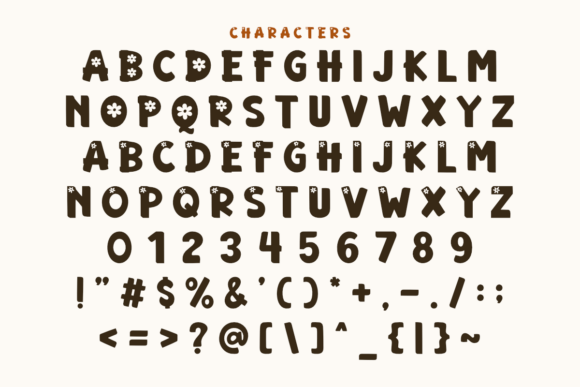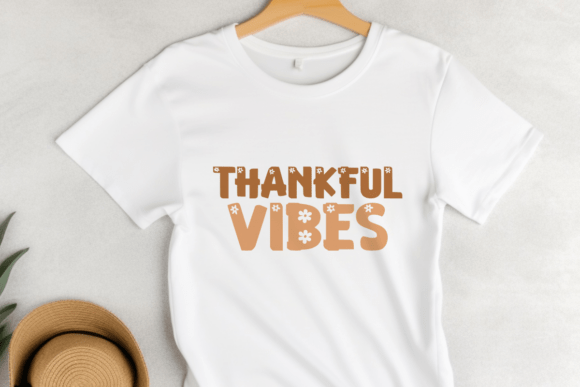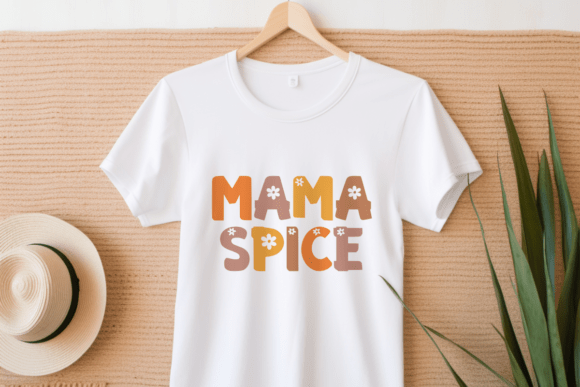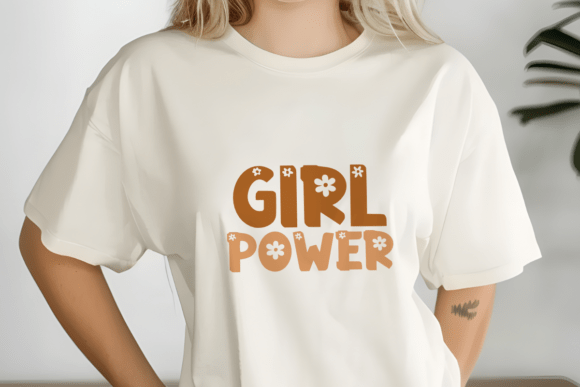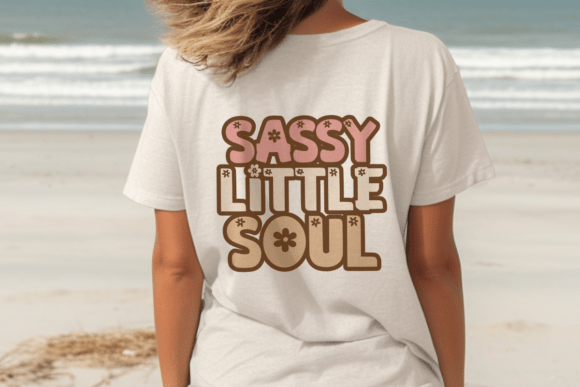
Fancy Flower Font: Add a Touch of Whimsy to Your Designs
Are you looking for a font that can add a dash of personality and charm to your design projects? Look no further than Fancy Flower, a playful and quirky retro font that’s bursting with creativity. With its bold and unique letterforms, delightful floral details, and cheerful vibe, Fancy Flower is the perfect choice for designers and crafters who want to make their designs stand out.
The Charm of Fancy Flower
Fancy Flower is a one-of-a-kind font that’s full of charm and character. Its bold and unique letterforms are designed to grab attention and make a statement, while its delightful floral details add a touch of whimsy and playfulness. Whether you’re designing a logo, creating a poster, or crafting a greeting card, Fancy Flower is sure to bring a smile to your face and add a touch of personality to your design.
One of the best things about Fancy Flower is its versatility. This font can be used for a wide range of design projects, from branding and titles to wedding invitations, t-shirts, stickers, greeting cards, product packaging, posters, logos, and digital designs. Whether you’re a professional designer or a crafty DIY enthusiast, Fancy Flower is the perfect choice for anyone who wants to add a touch of fun and personality to their designs.
Fancy Flower is a font that’s designed to inspire creativity and bring joy to your design projects. Its playful and quirky vibe makes it perfect for creative projects that require a touch of whimsy and charm. Whether you’re designing a logo for a children’s brand, creating a poster for a music festival, or crafting a greeting card for a special occasion, Fancy Flower is sure to add a touch of magic to your design.
Key Features of Fancy Flower
- Bold and unique letterforms: Fancy Flower’s bold and unique letterforms are designed to grab attention and make a statement.
- Delightful floral details: The font’s delightful floral details add a touch of whimsy and playfulness to any design.
- Playful and quirky vibe: Fancy Flower has a playful and quirky vibe that’s perfect for creative projects that require a touch of charm and personality.
- Versatile: This font can be used for a wide range of design projects, from branding and titles to wedding invitations, t-shirts, stickers, greeting cards, product packaging, posters, logos, and digital designs.
How to Use Fancy Flower in Your Designs
Fancy Flower is a playful and quirky retro font that’s full of charm and creativity. Its bold and unique letterforms, combined with delightful floral details, make it perfect for adding a cheerful and fun touch to any design project. Whether you’re a professional designer or a crafty DIY enthusiast, Fancy Flower is sure to bring your ideas to life with personality and style. So why wait? Download Fancy Flower today and start adding a touch of whimsy to your designs!